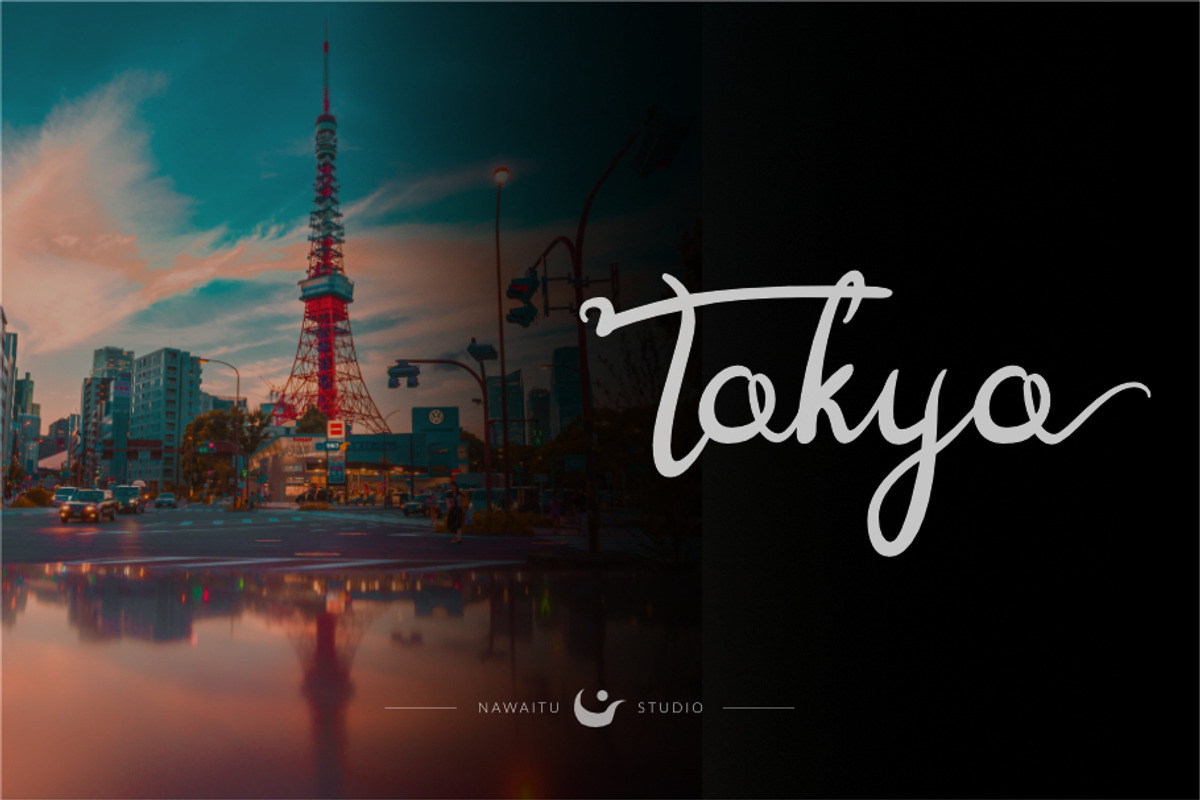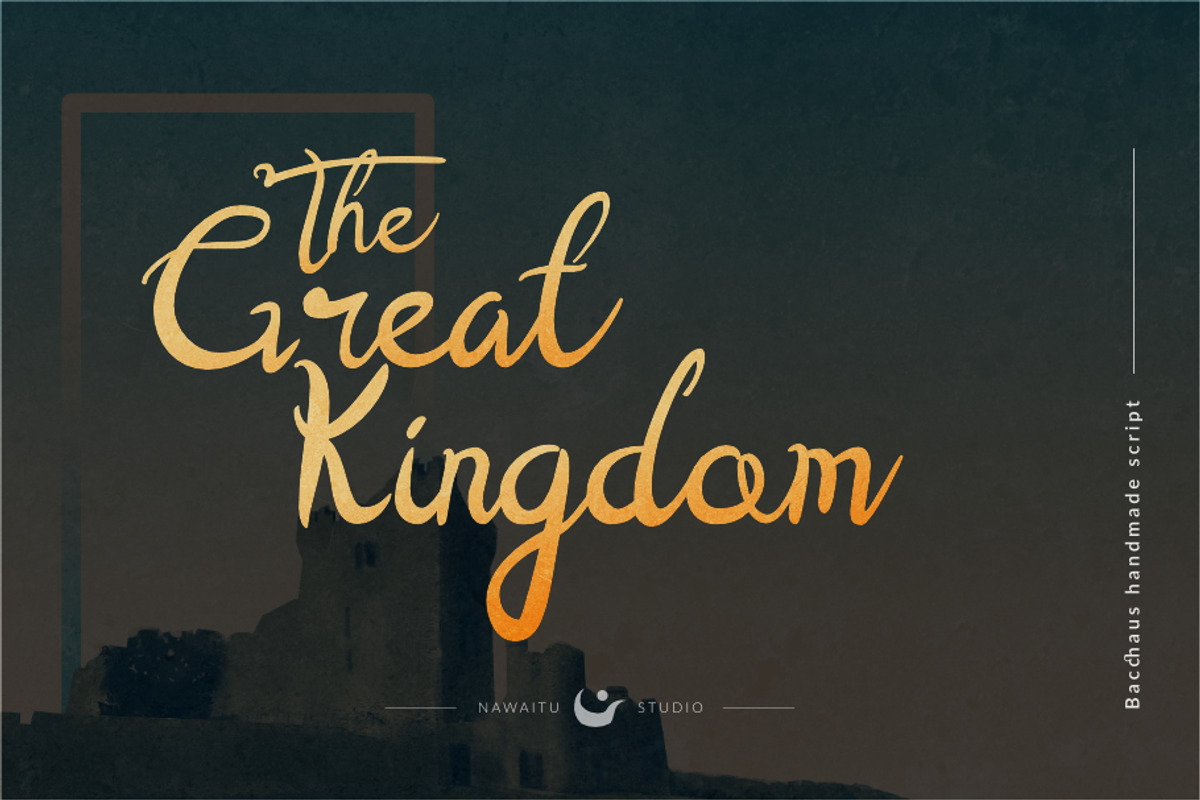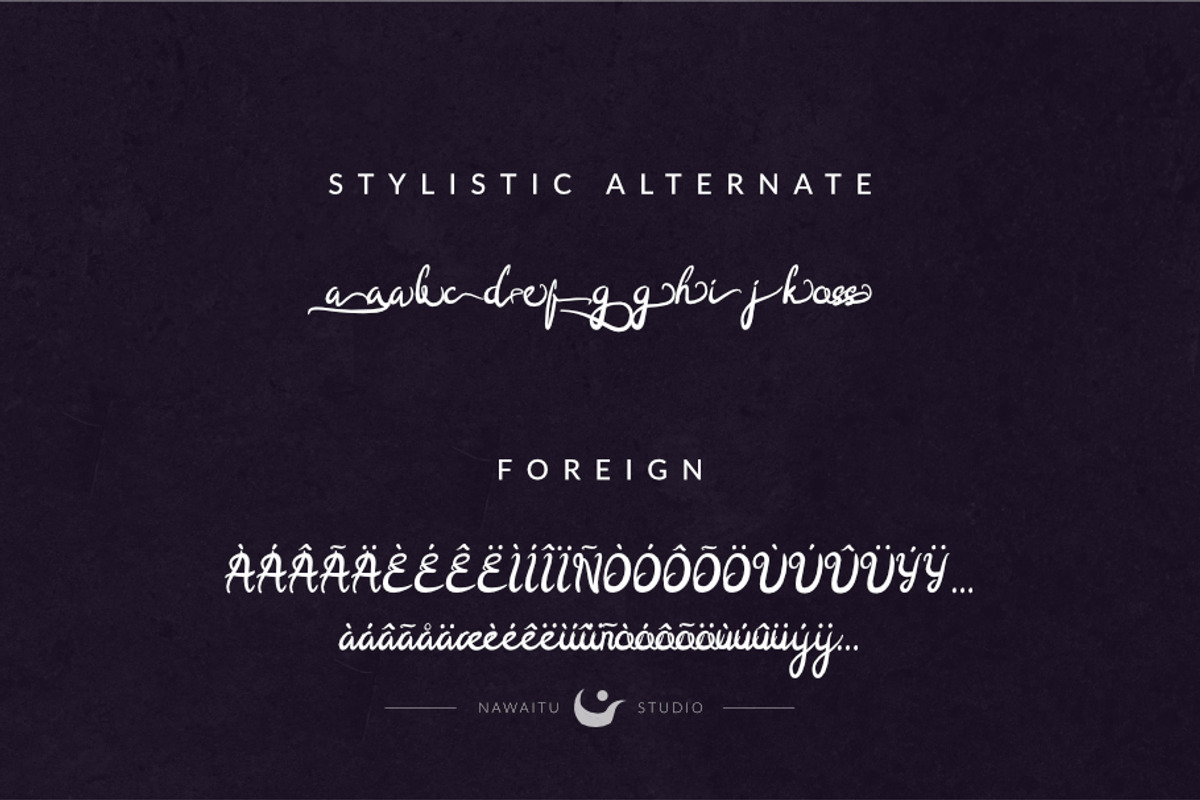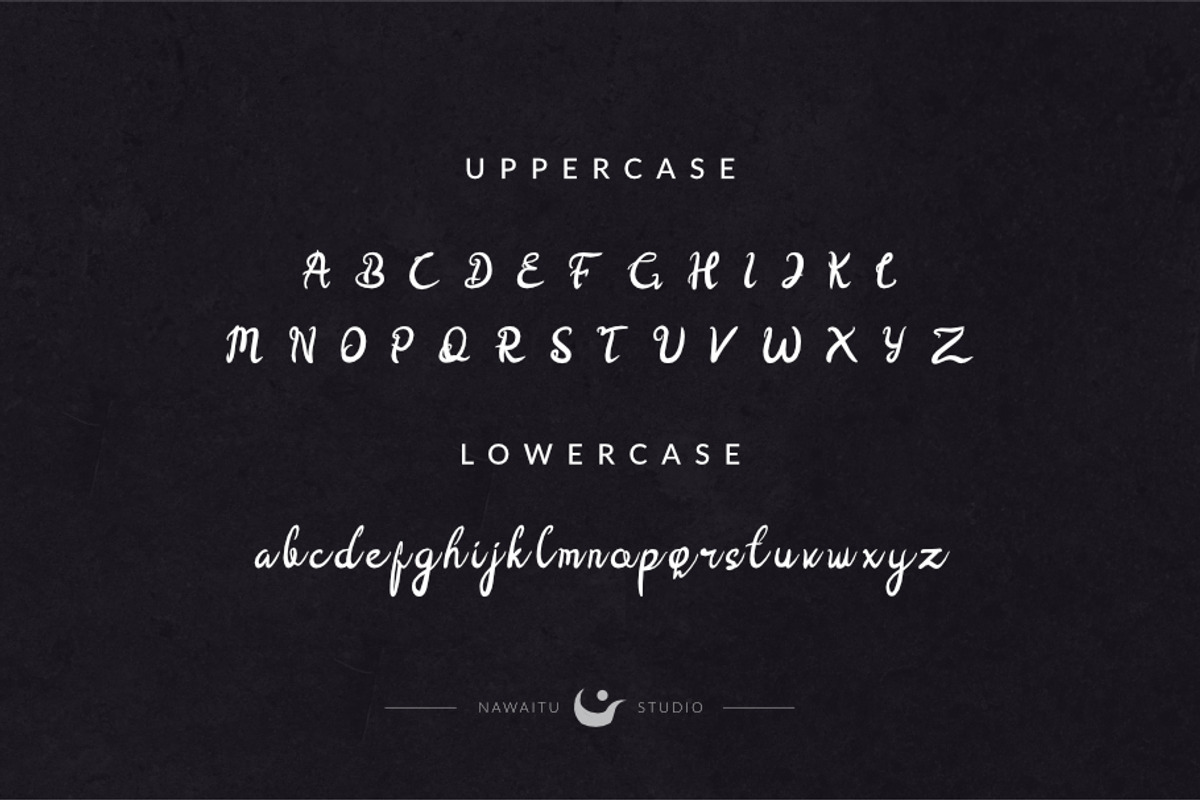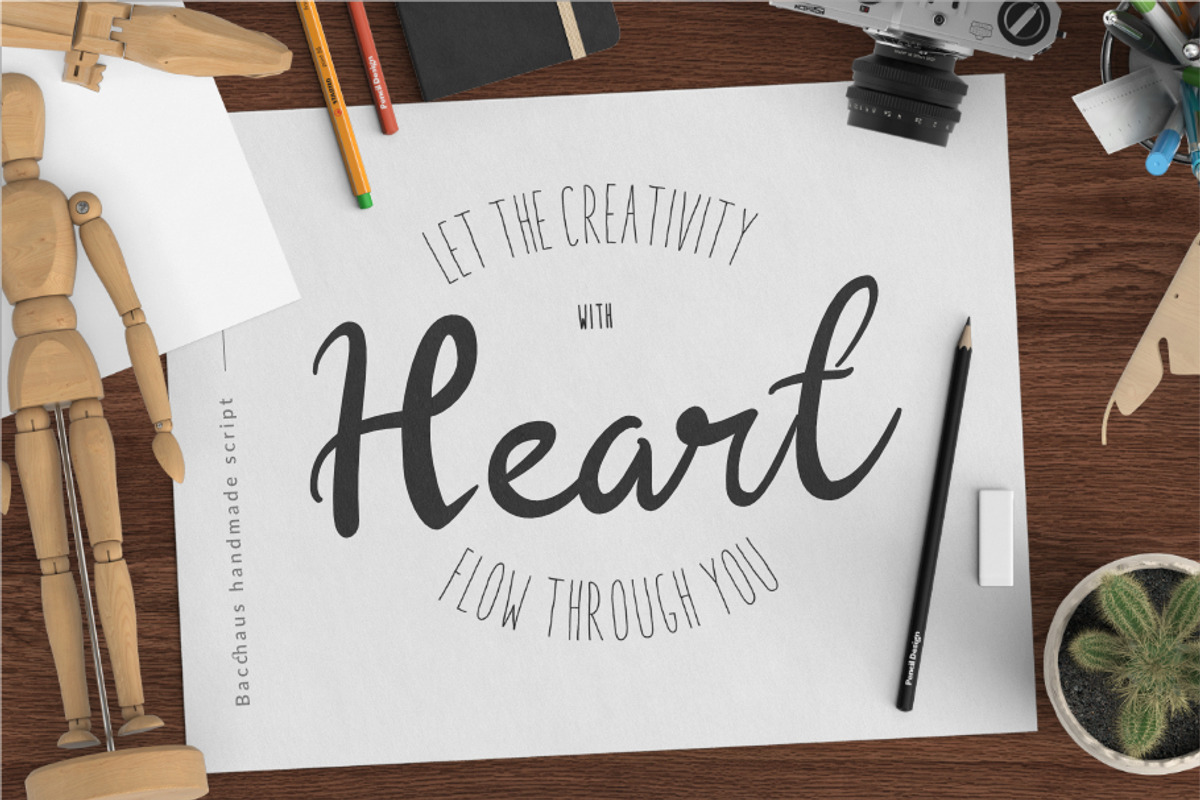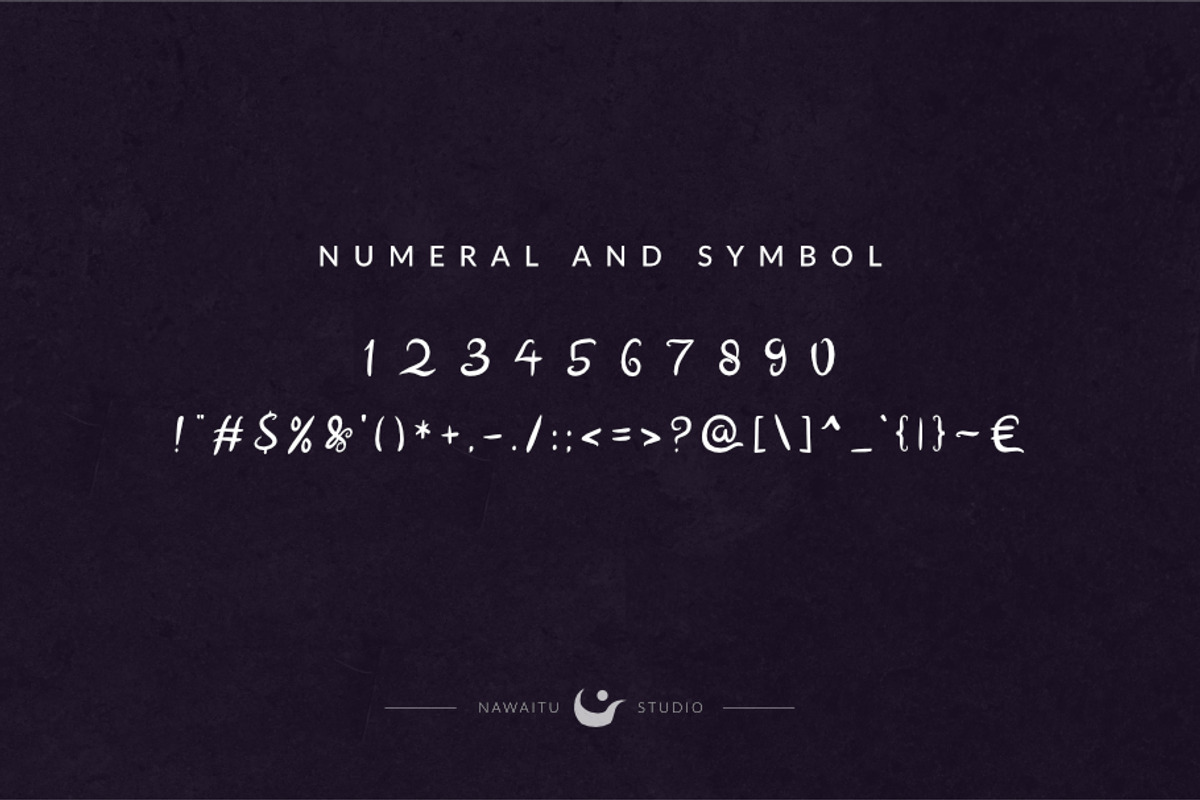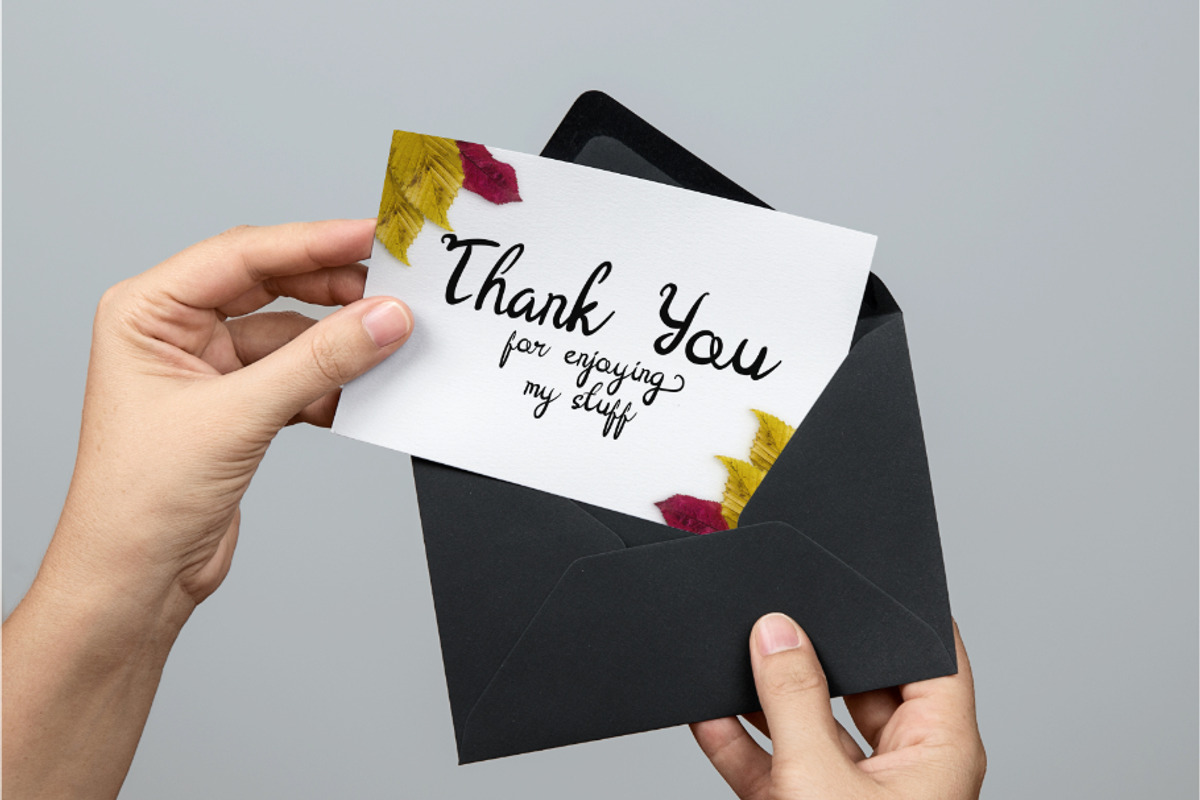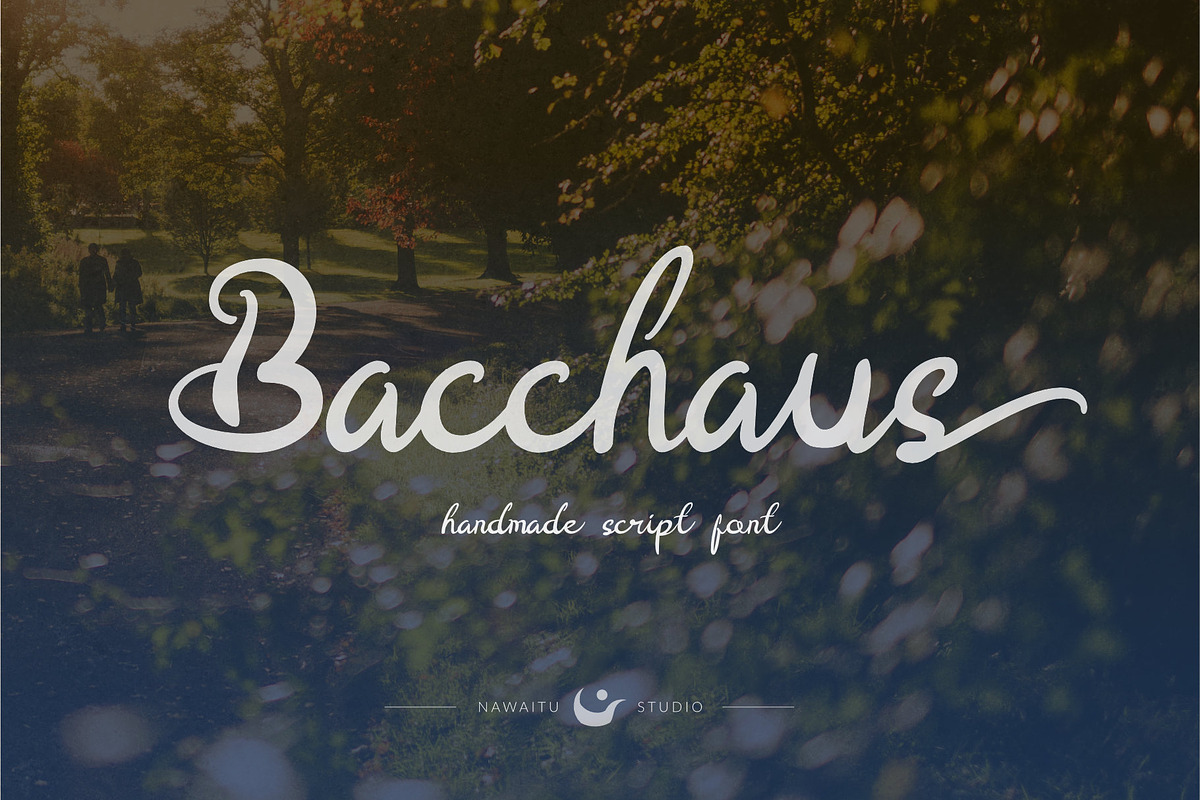
Bacchaus font - Script Fonts
Bacchaus is a classy script font, dapper handwritten font with a personal charm. Bacchaus is perfect for branding projects, homeware designs, product packaging - or simply as a stylish text overlay to any background image.
Bacchaus Script font also includes full set of uppercase and lowercase letters, multilingual symbols, numerals, ligature, alternate, punctuation.